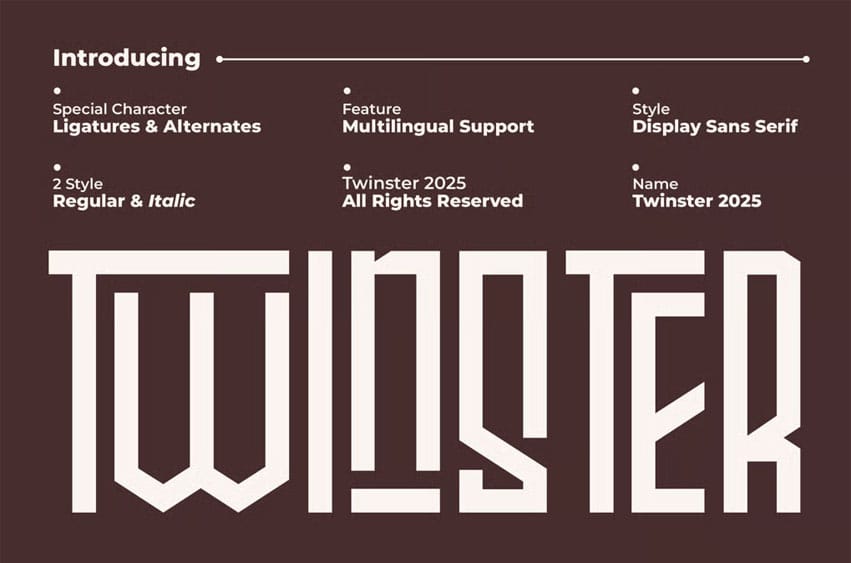
Twinster Font is a crisp, confident display sans serif designed for branding impact and creative expression. From digital banners to futuristic logos, Twinster brings clarity, rhythm, and bold precision to every letterform.
Key Features
- Geometric structure with refined curves and tight spacing
- Bold letterforms with sharp contrast and clear rhythm
- Multilingual support (Latin Extended + Smart Diacritics)
- Screen-optimized with precision kerning and visual balance
- Tech brands & modern startups
- Lifestyle products & creative campaigns
- UI headers, apps, and bold web interfaces
- Movie titles & promo visuals
- Social media graphics & bold quotes
> Twinster is where minimal design meets confident energy — a sans serif built to lead, impress, and define the future.